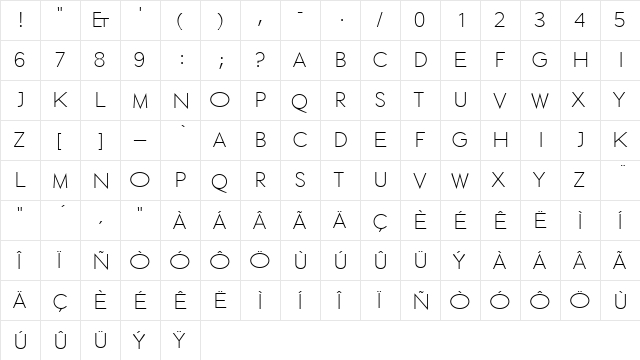
ETH Large Expanded Regular
Design Context for ETH Large Typeface
ETH Large is a composed and adaptable typeface that performs quietly and consistently across a wide range of design contexts.